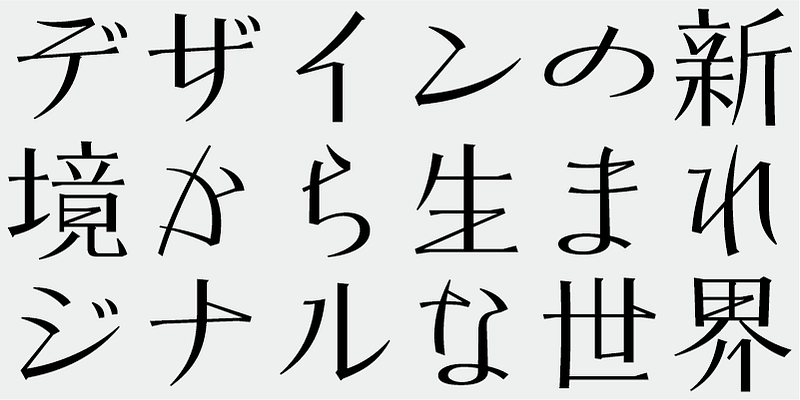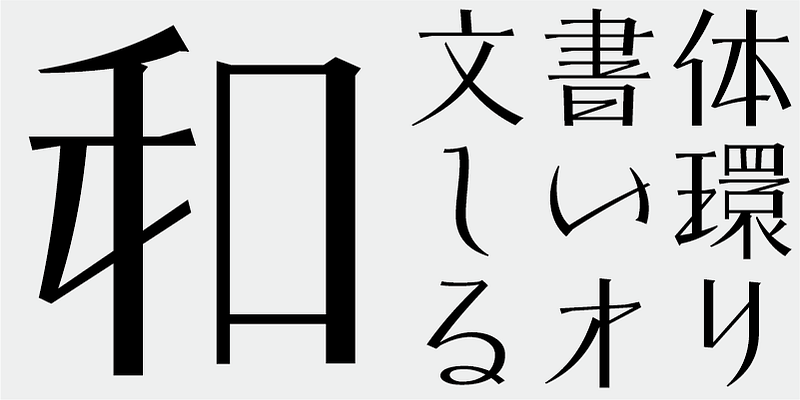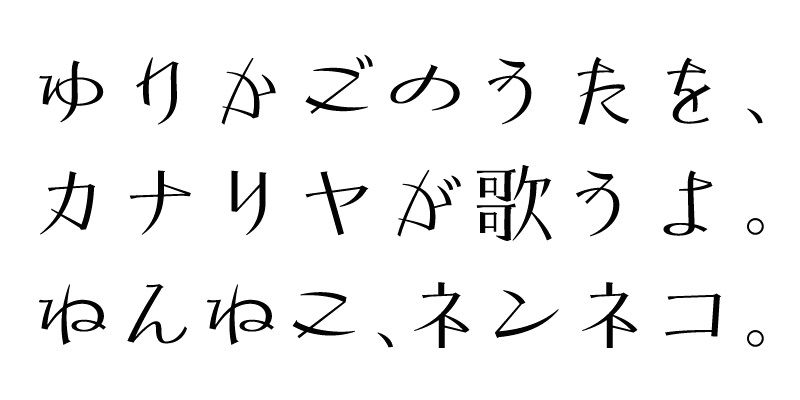
This typeface combines Kanji characters with Japanese-style stroke elements and kana characters with a unique design. The elegance and sharpness of the design lends itself well to longer text.